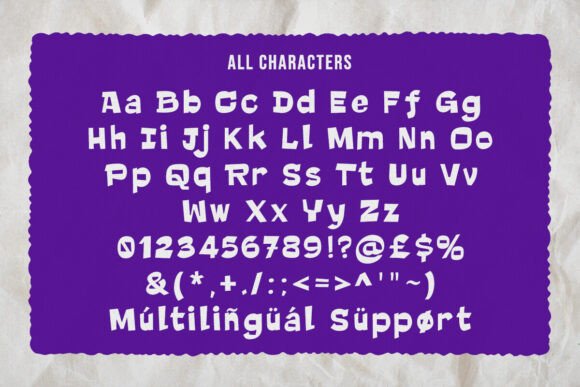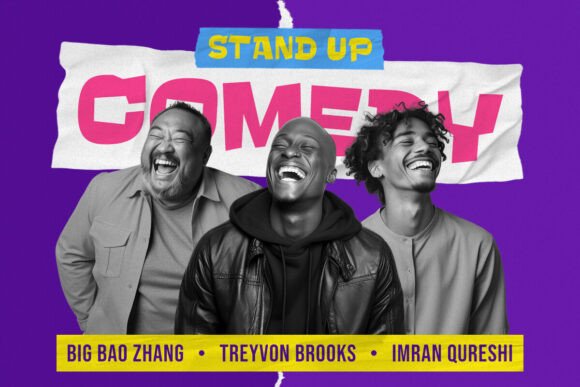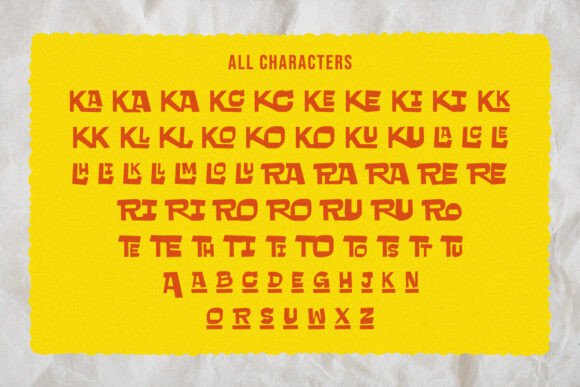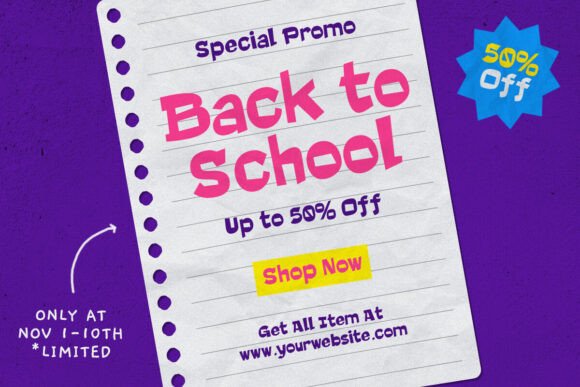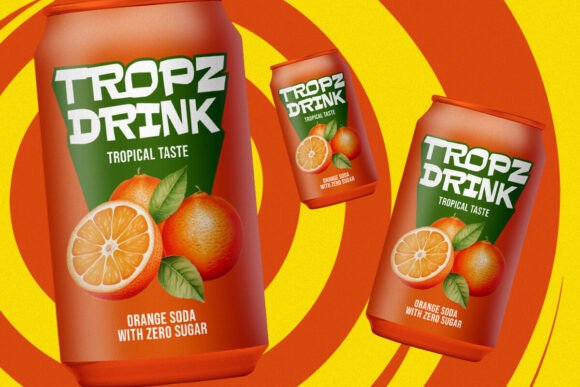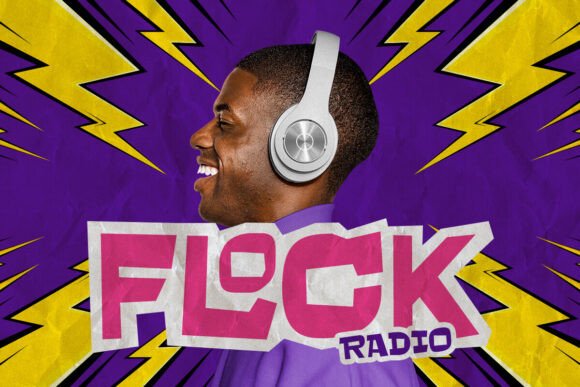
Introduction to Rooly Font
Have you ever stared at a blank page, desperate for the perfect font to bring your creative project to life? As a designer, you know the struggle of finding that one special font that perfectly captures the essence of your idea. Well, say hello to Rooly Font, a fun and cheerful display font that’s guaranteed to add a splash of happiness to your designs.
Rooly Font is more than just a design resource – it’s a game-changer. With its bold shapes, quirky curves, and friendly character, it’s perfect for eye-catching designs like logos, posters, merchandise, packaging, social media posts, and kids-themed projects. Whether you’re crafting a playful brand identity or a vibrant headline, Rooly Font is the perfect companion for your creative journey.
Key Features of Rooly Font
Honest Review: Rooly Font
Here are some things that work well with the Rooly Font: ✨
- It has a wide range of applications, from body text to headings and even decorative elements.
- The font is highly customizable, allowing for easy adjustments to size, color, and style.
- The transparent background makes it easy to layer and combine with other design elements.
However, I did encounter a few limitations: ⚠️
- The font may not be suitable for very small text sizes, as it can become pixelated.
- The font family is quite large, which can make it difficult to manage in certain design applications.
Overall, I’m thoroughly impressed with the Rooly Font. It’s a valuable addition to any design toolkit and has opened up new creative possibilities for me. If you’re looking for a high-quality, versatile font for your next project, I highly recommend giving the Rooly Font a try.
Rooly Font is ideal for:
Logo design
Brochure design
Infographic creation
Business card design